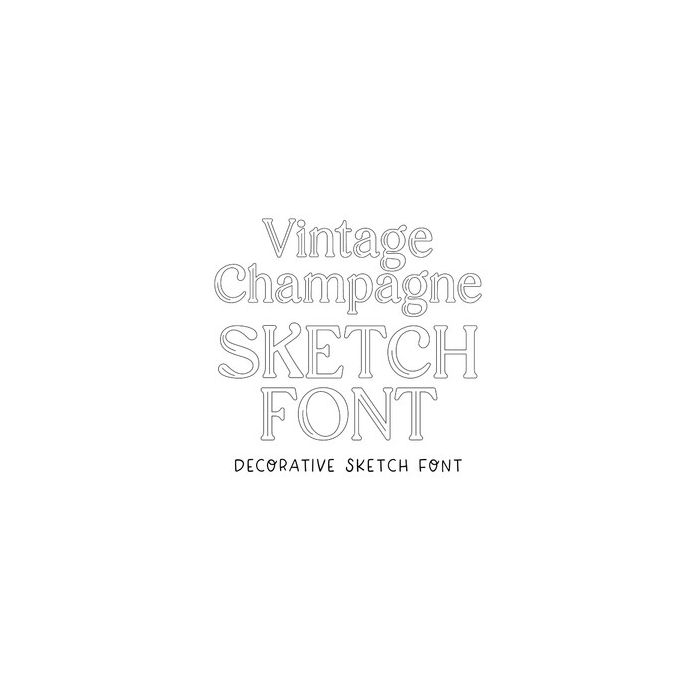
BFC Vintage Champagne Sketch Detailed Modern Sketch Font
Vintage Champagne Sketch is a modern serif sketch font with extra sketched details n the letters. Includes intl characters!